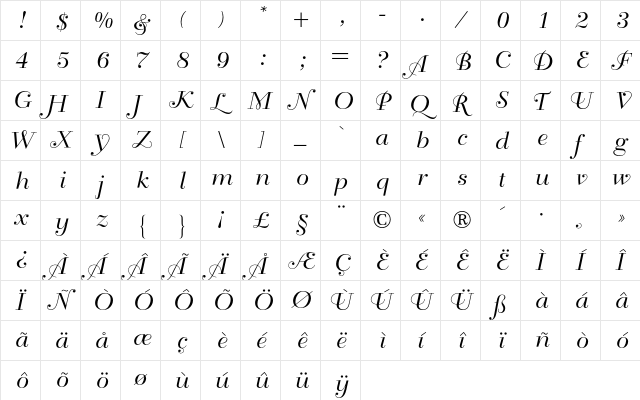
Bellevue BQ Regular
Design Context for Bellevue BQ Typeface
Bellevue BQ is a composed and adaptable typeface that performs quietly and consistently across a wide range of design contexts.
Pro Tip: Use Bellevue BQ in both headline and body roles to test its range before committing to a single application.